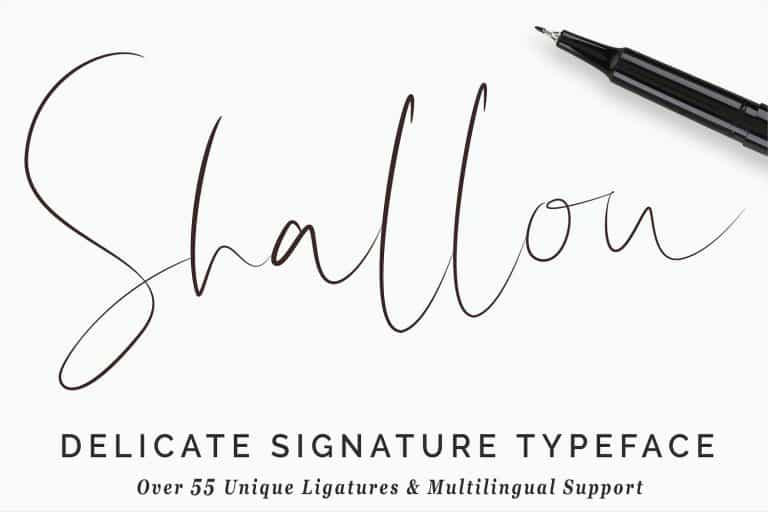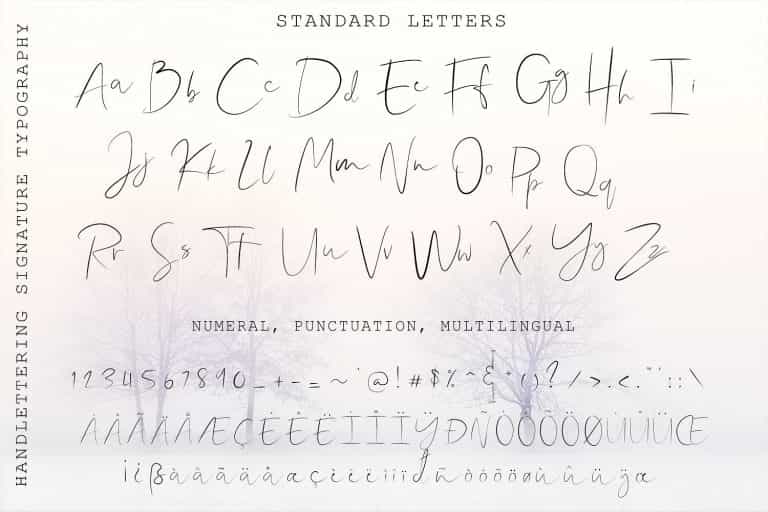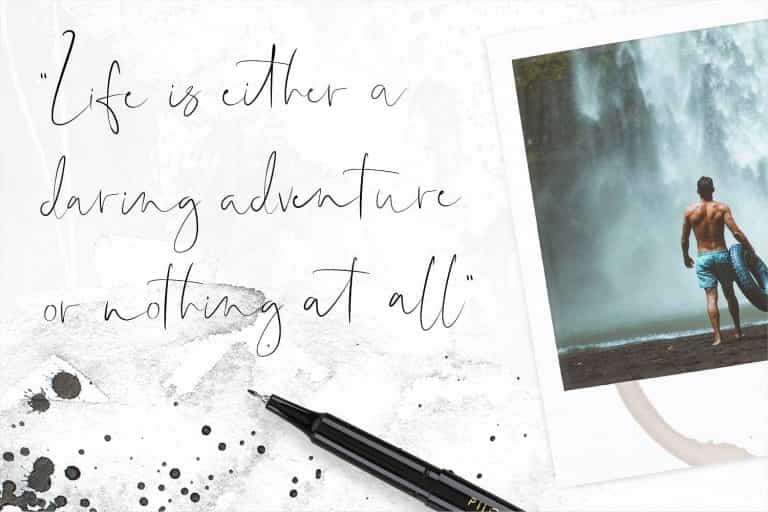
Shallou is a handmade brushed typeface with a delicate, fun, and slightly informal look. More than 55 ligatures are included along with multilingual support. This typeface is great for weddings, invitations, posters, banners, & more!